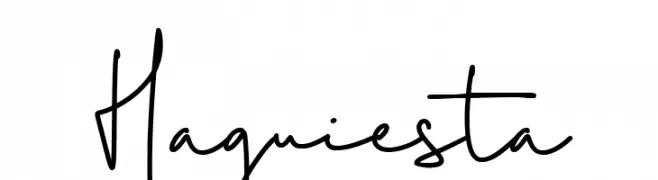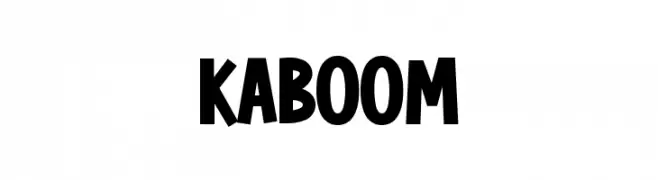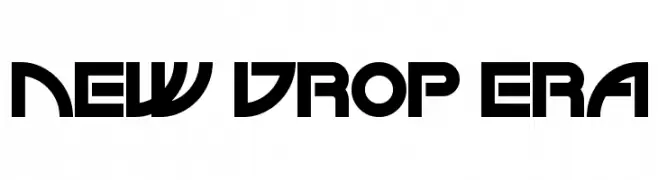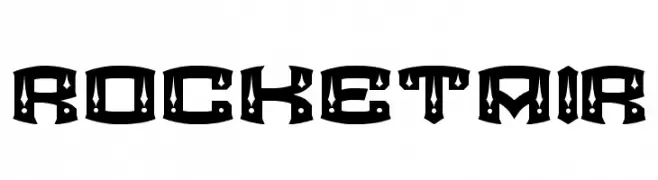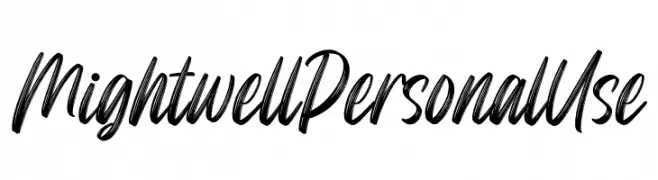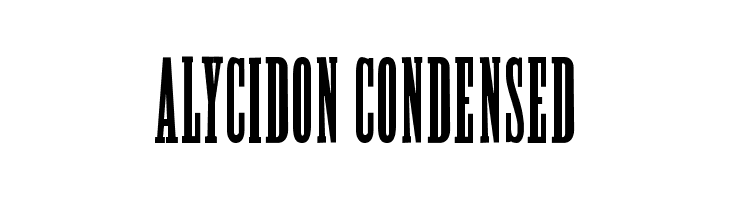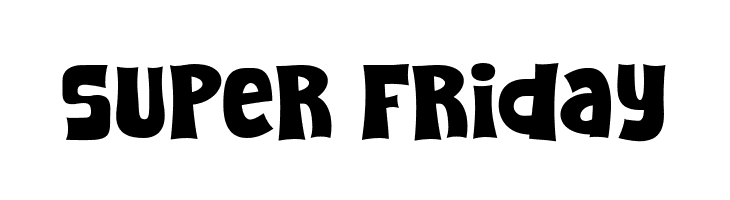
A modern, narrow font with vintage flair and consistent stroke width.
A casual, handwritten font with a playful and informal style.
A bold, decorative font with thick strokes and a playful style.
A bold, cursive font with flowing, interconnected letters and elegant style.
A bold, geometric font with a futuristic and modern design.
A bold, geometric font with sharp angles and high contrast, ideal for decorative use.
A bold, decorative font with intricate skull and crossbones designs.
A bold, decorative font with intricate, swirling designs and tight character spacing.
A bold, italicized font with a halftone pattern and geometric structure.
A bold, expressive handwritten font with dynamic brush-like strokes.